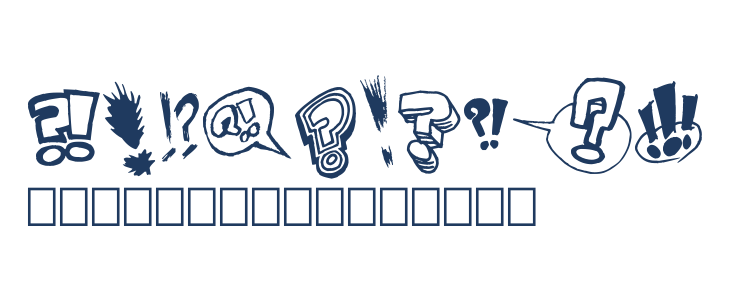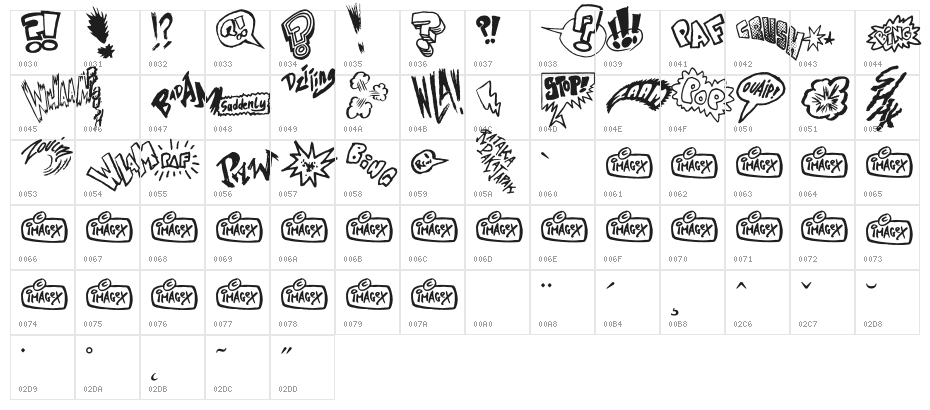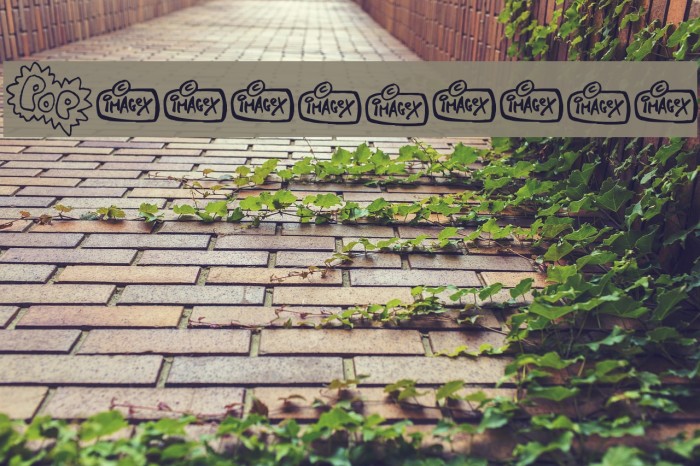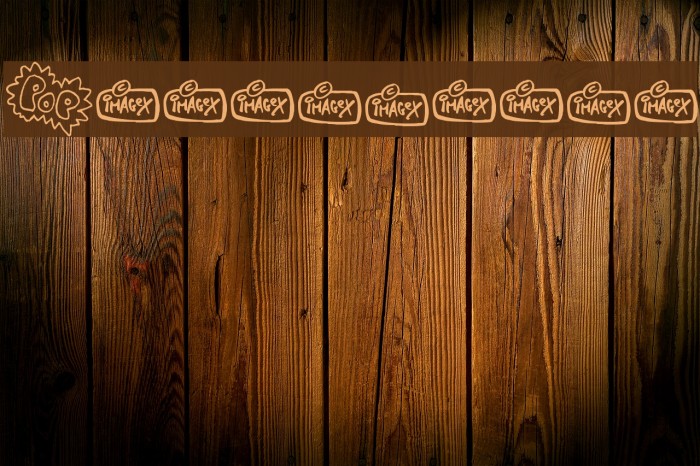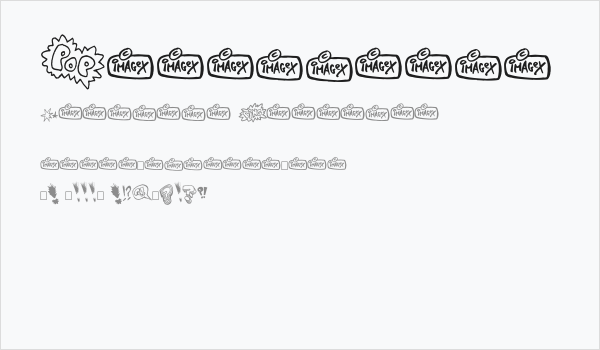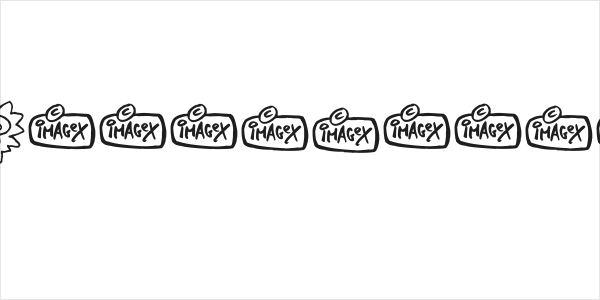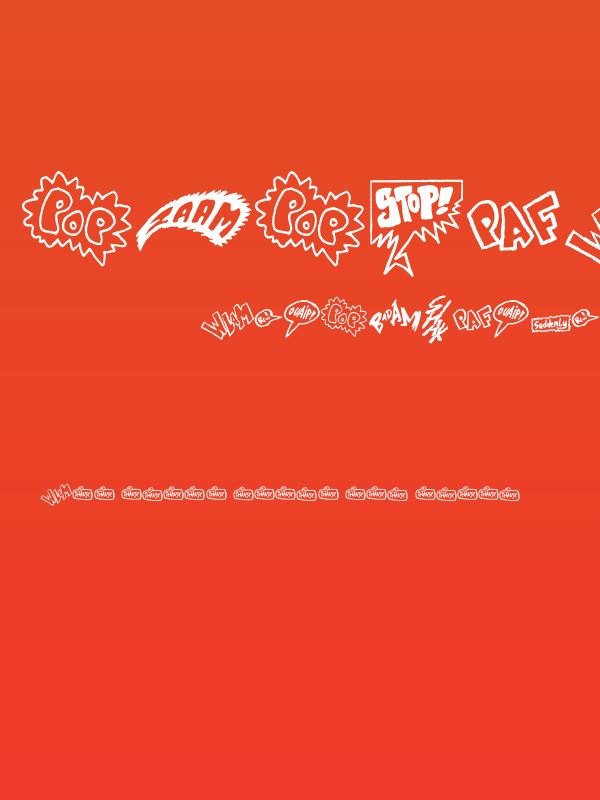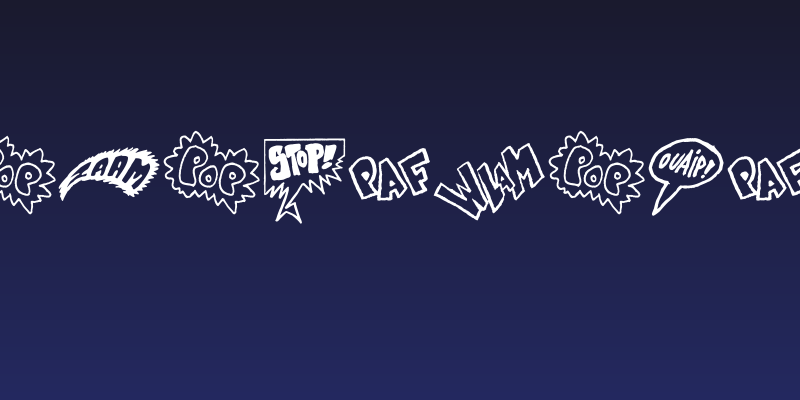
Onomatopaf Font
Onomatopaf Description
This font is a dynamic and expressive collection of comic-style onomatopoeic words and symbols. Each character is designed with a playful and exaggerated style, reminiscent of classic comic book sound effects. The font includes a variety of bold and energetic words like 'BAM', 'POW', and 'WHAM', each with unique shapes and outlines that convey movement and impact. The characters are highly stylized with varying stroke weights and decorative elements, making them ideal for creating a sense of action and excitement. The font also includes a series of punctuation marks and symbols, each rendered with the same lively and animated style. This font is perfect for projects that require a fun and engaging visual language, such as comic books, graphic novels, and playful graphic design projects.
| Overall Style | Playful, Energetic, Comic |
| Use Case | Headlines, Logos, Decorative Elements |
| Proposed Projects | Ideal for comic books, graphic novels, playful posters, and children's book illustrations. |